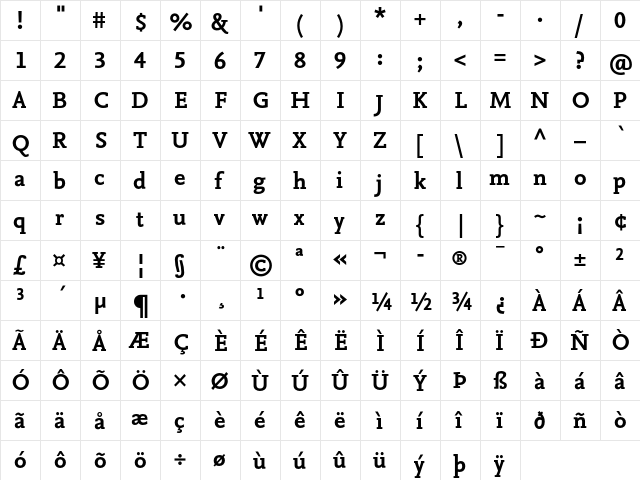
NexusMixTF-Bold Regular Font Preview
NexusMixTF-Bold Regular
NexusMixTF-Bold Regular Font Details
Design Context for NexusMixTF-Bold Typeface
NexusMixTF-Bold takes a measured approach to typography — its balanced proportions and neutral character make it a reliable workhorse for both digital and print work. The heavy weight commands attention and anchors typographic hierarchies.